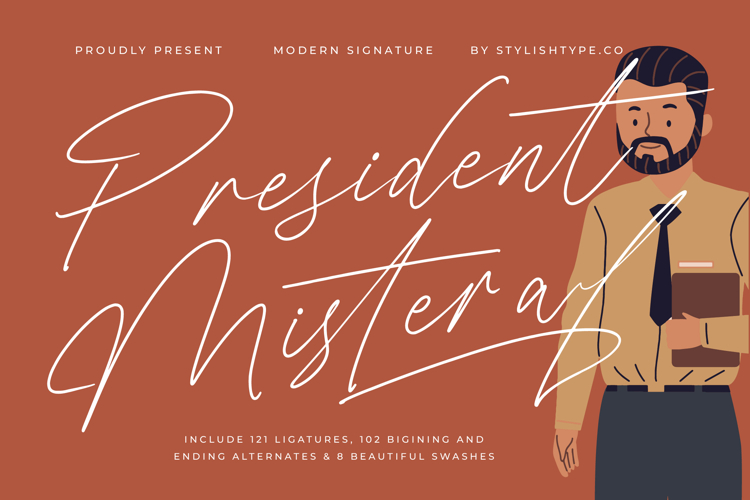
President Mistera - Modern Signature Font
This modern signature script brings a unique sense of luxury typography to any digital or print canvas, ensuring your projects carry a high-end editorial font aesthetic. With its profound branding impact and delicate flow, it serves as a premier choice for designers seeking to marry contemporary style with timeless grace.
Perfectly capturing the current modern signature trend, this typeface meets the market demand for character-driven typography that feels authentic and human. It stands alongside the best editorial script fonts used in high-fashion editorials and upscale lifestyle branding today.